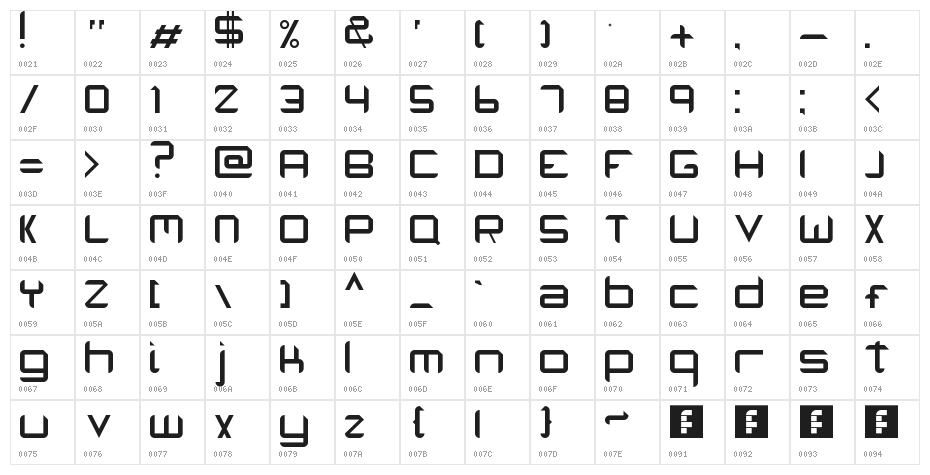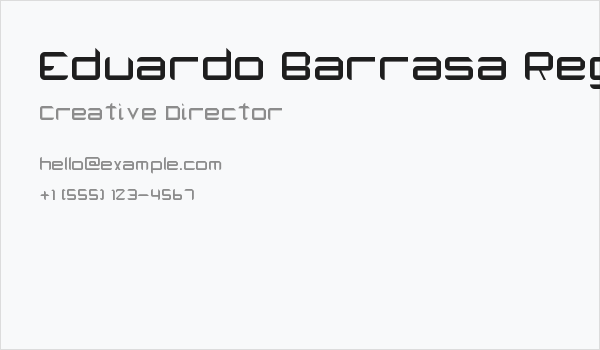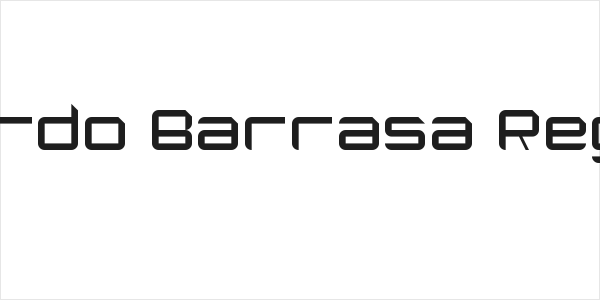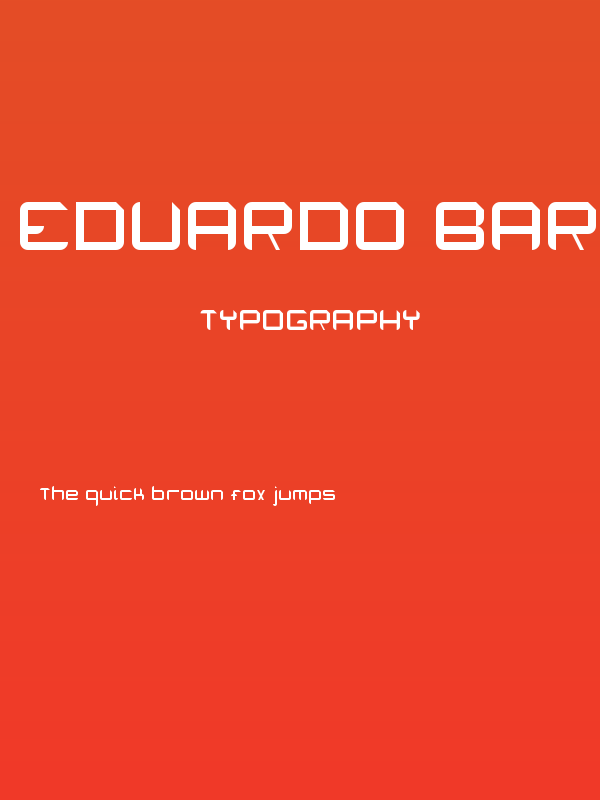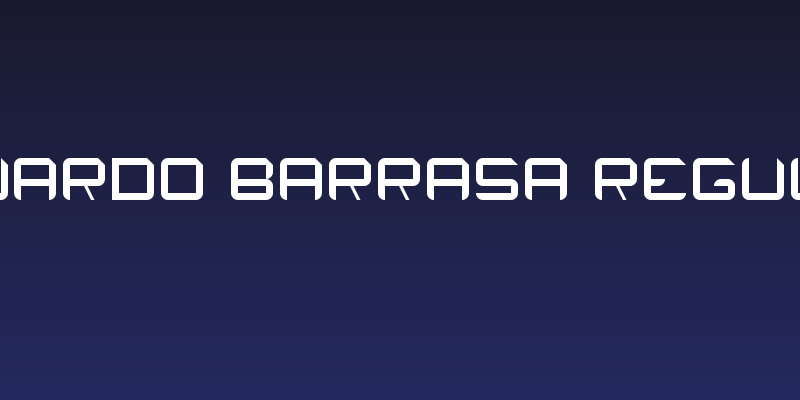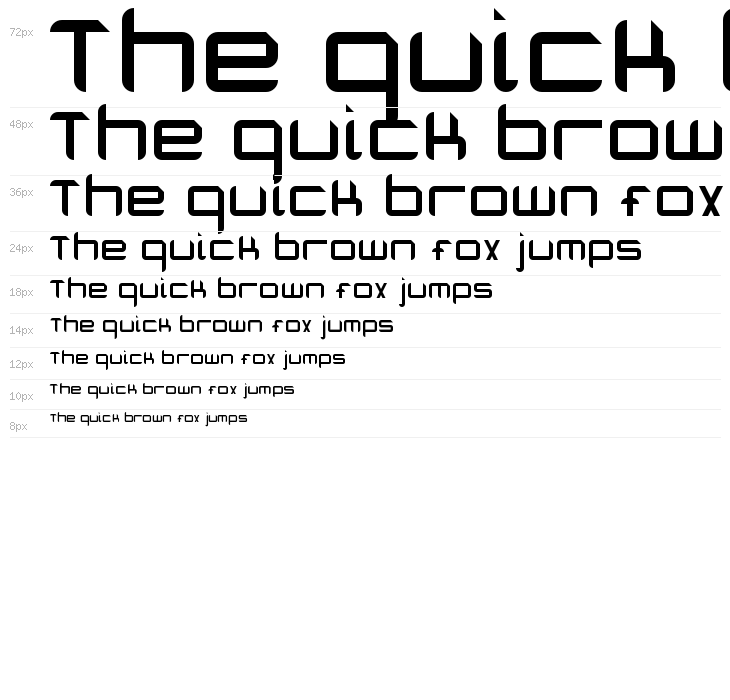
Eduardo Barrasa Regular Font
Eduardo Barrasa Regular Description
This font features a modern, geometric design with a futuristic appeal. The characters are constructed with clean, straight lines and sharp angles, giving it a technical and digital feel. The uppercase and lowercase letters maintain a consistent style, with rounded corners that soften the overall look. Numbers and special characters follow the same design principles, ensuring uniformity across all glyphs. The font's structure is both bold and minimalistic, making it suitable for contemporary design projects.
| Use Case | Headlines, Logos, Digital interfaces |
| Proposed Projects | Ideal for technology branding, digital interfaces, video game graphics, and modern advertising. |